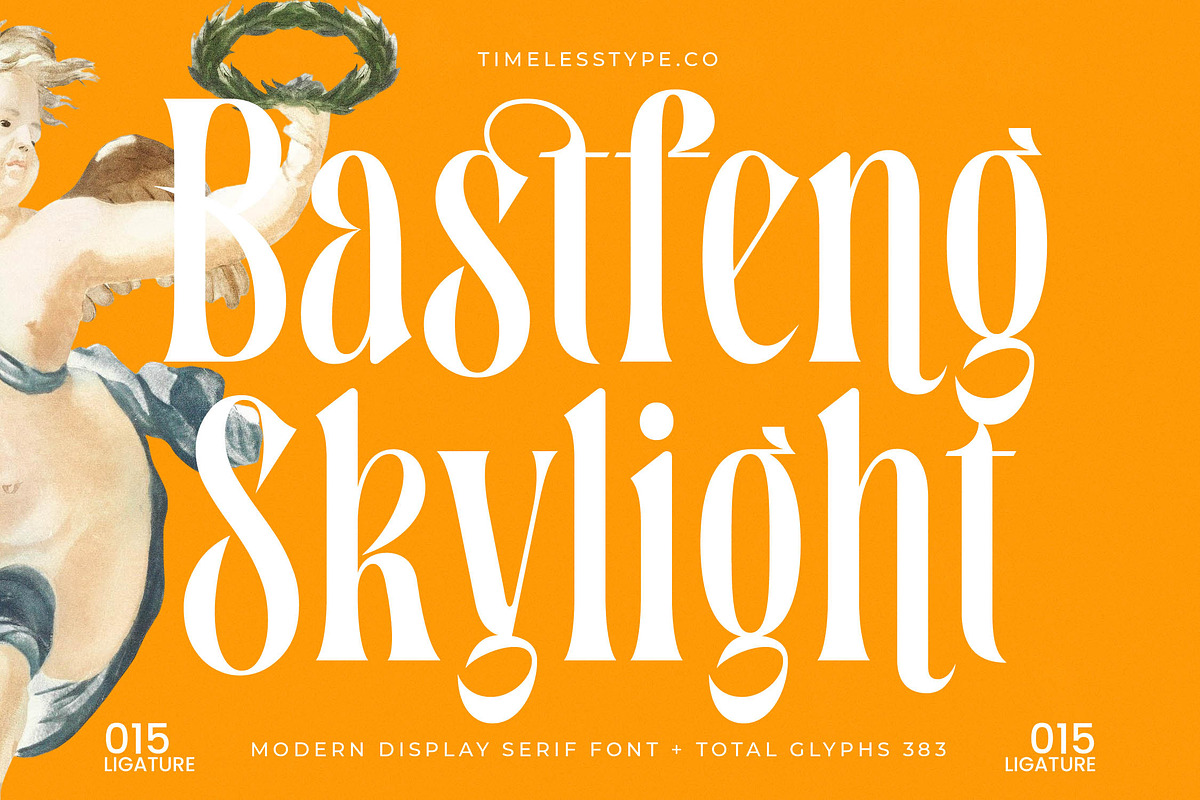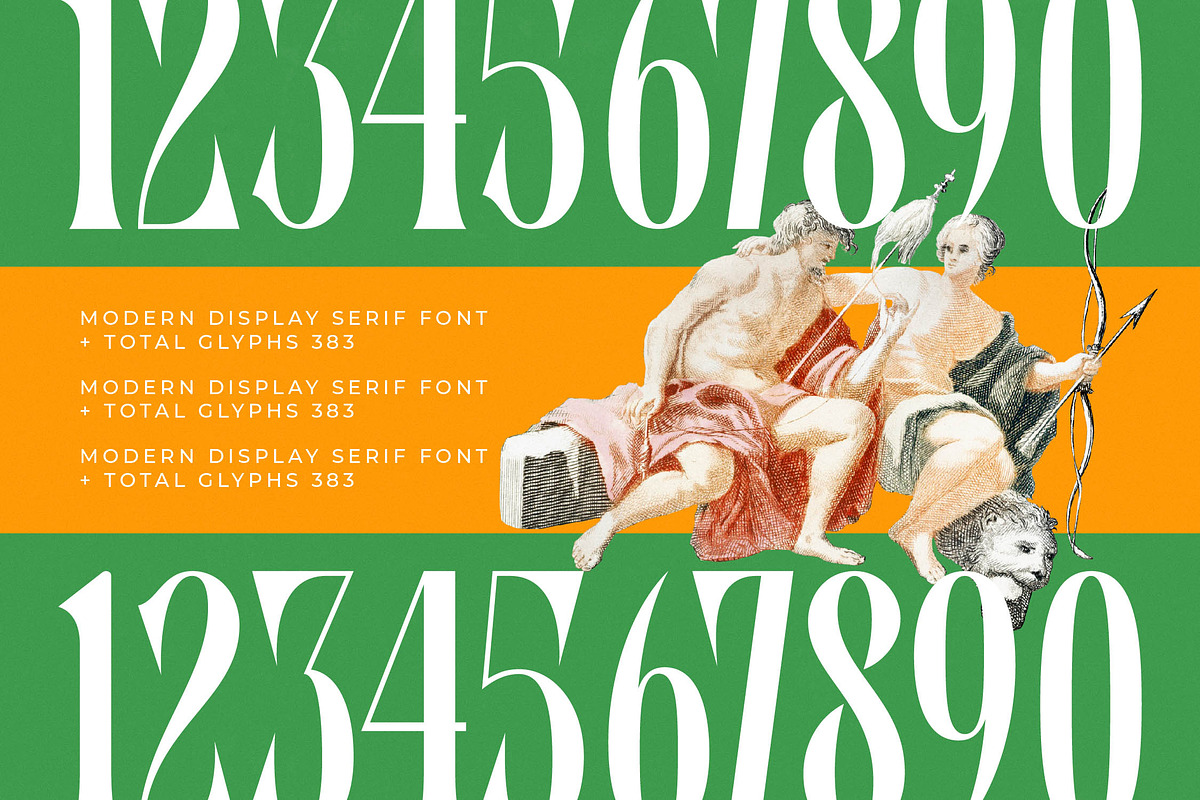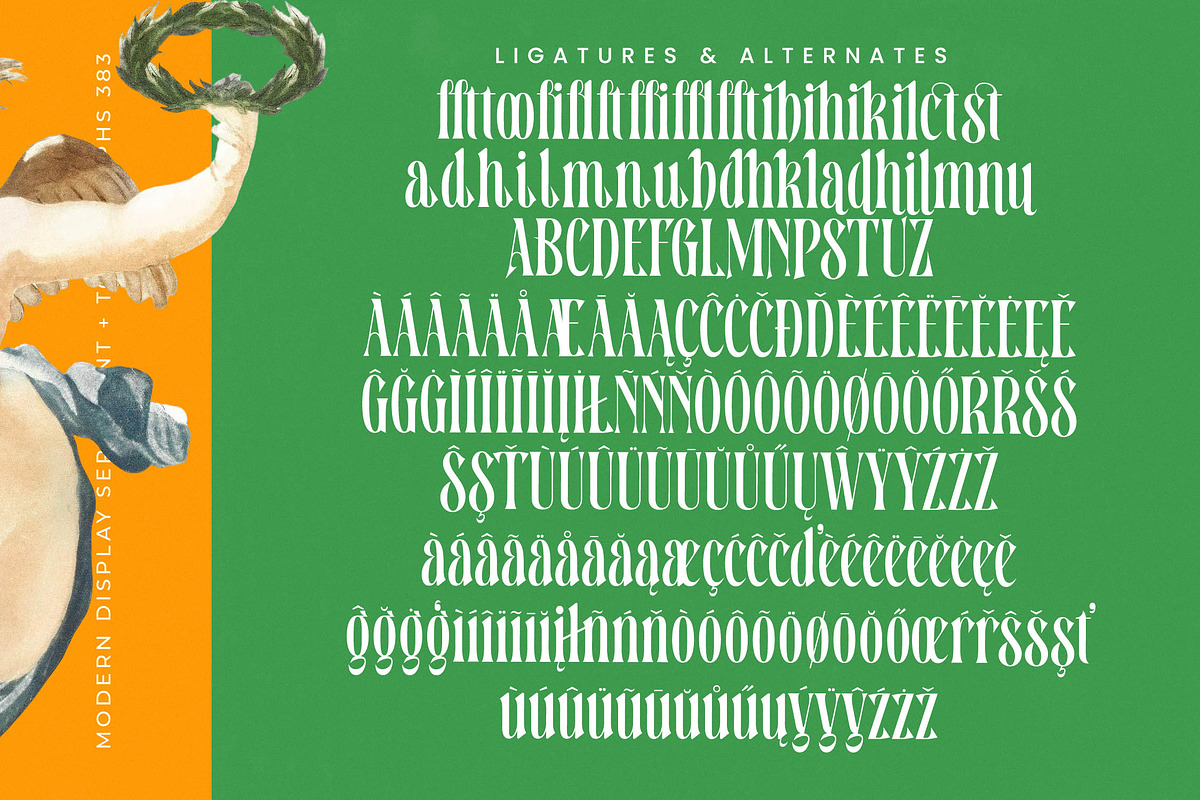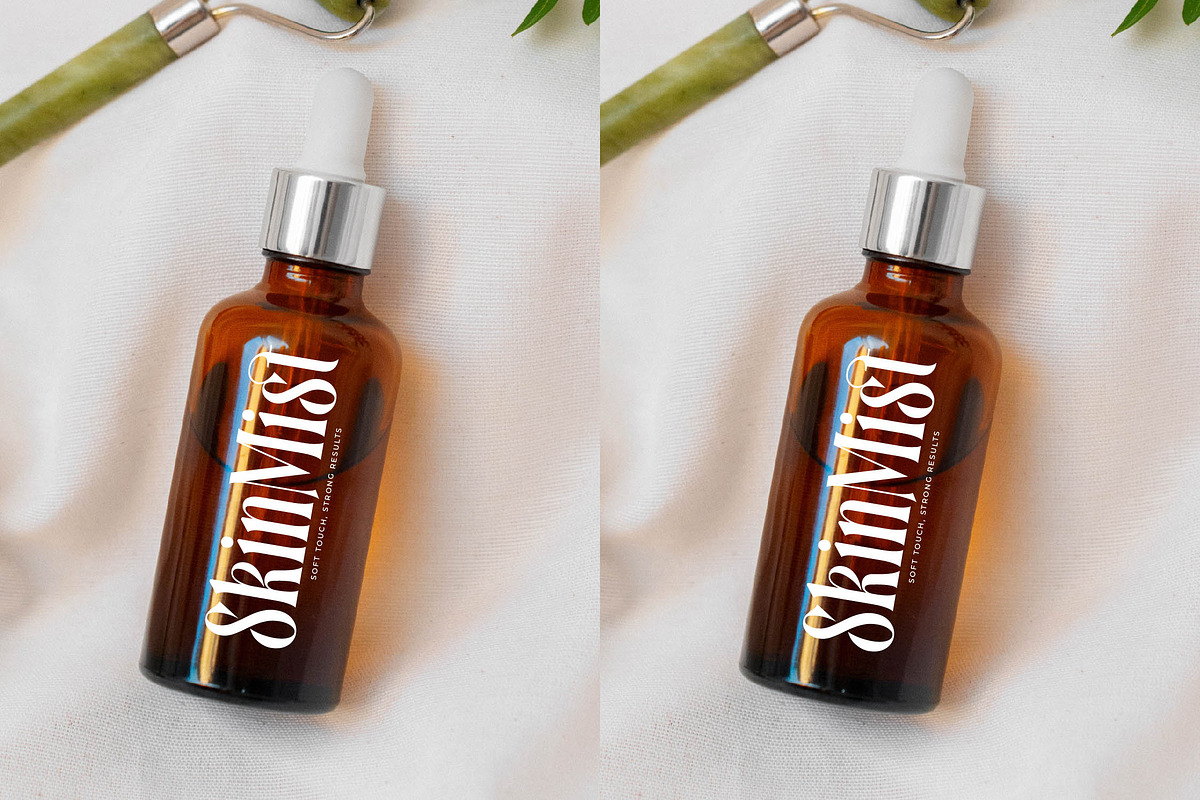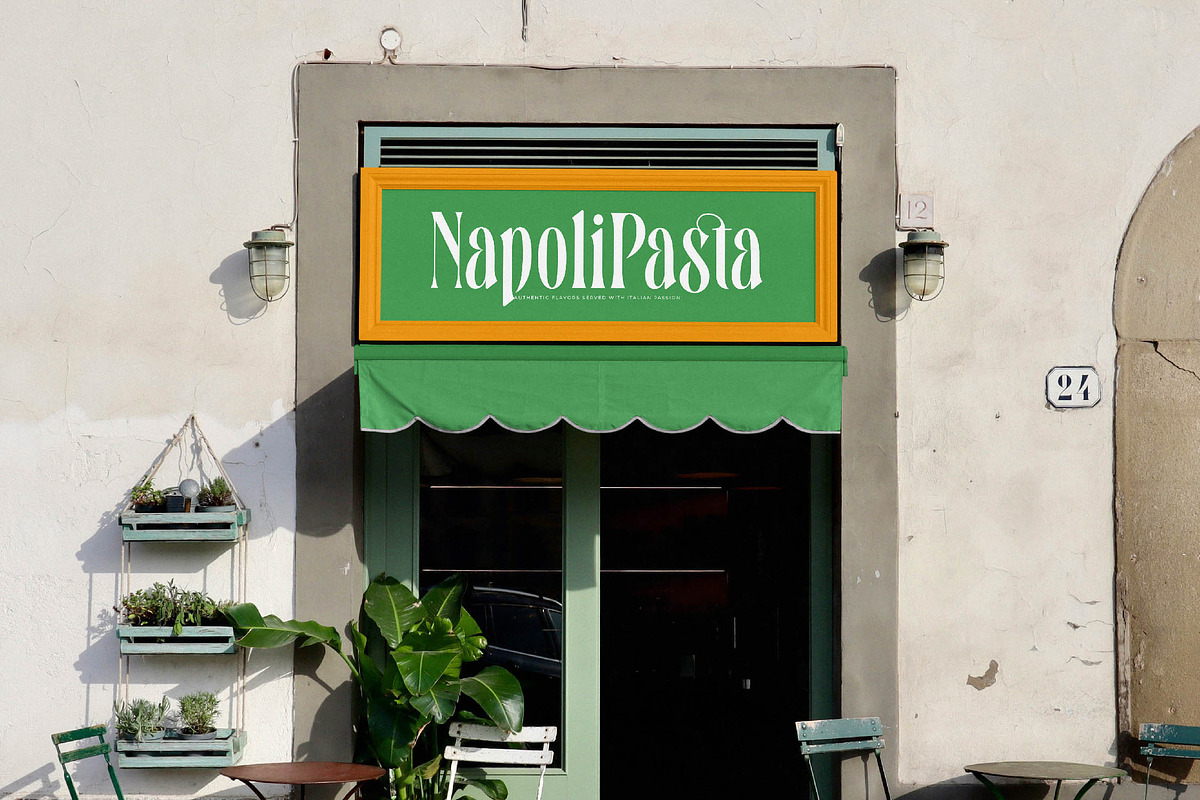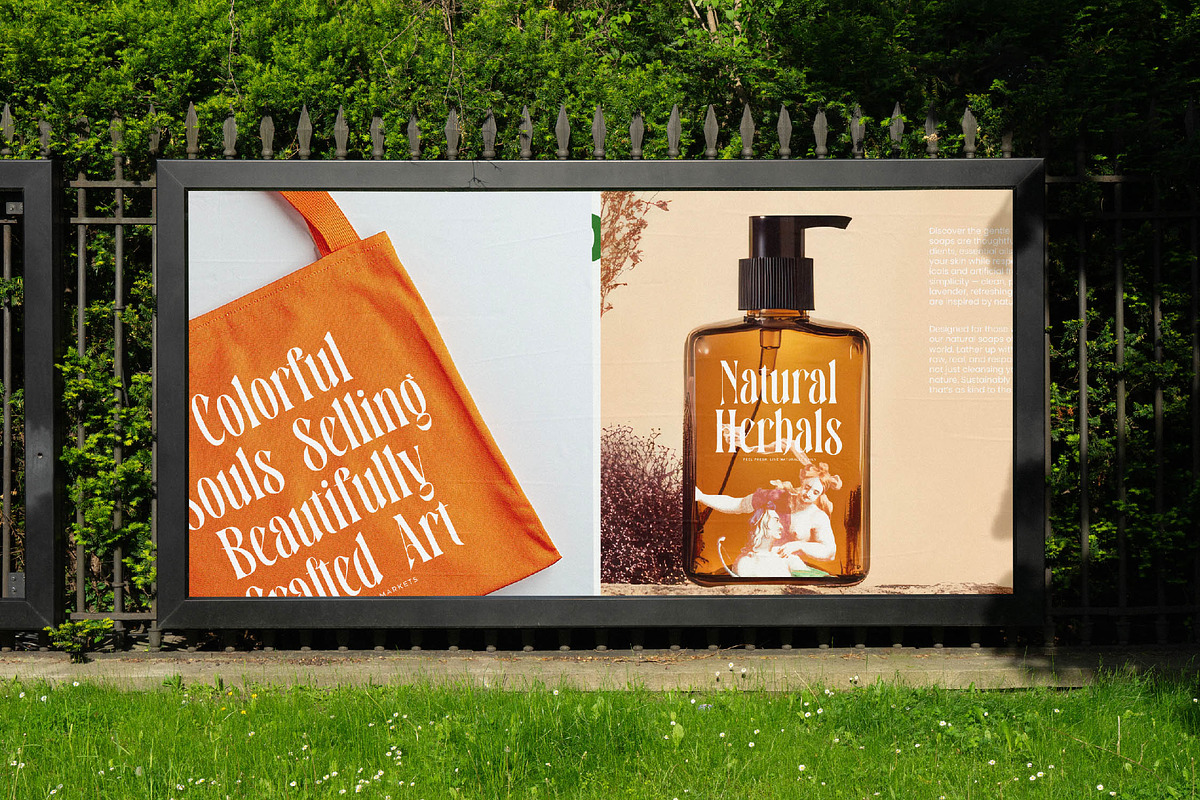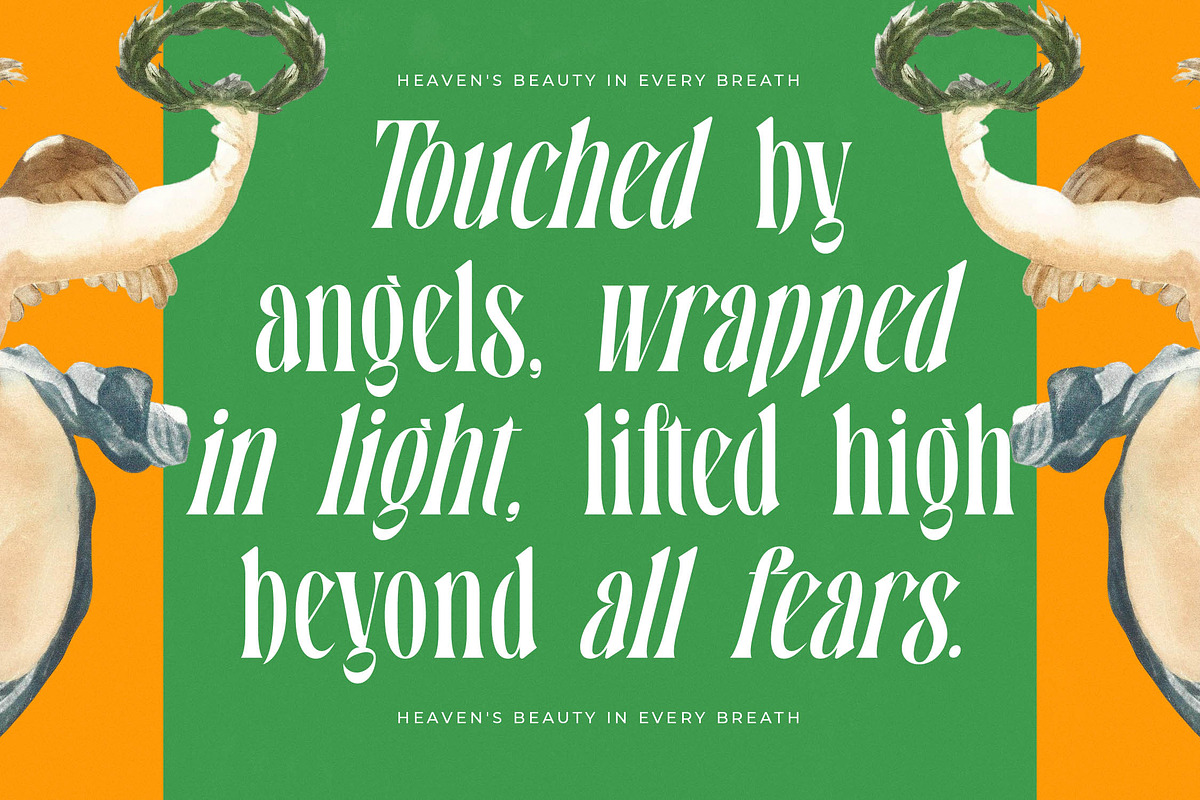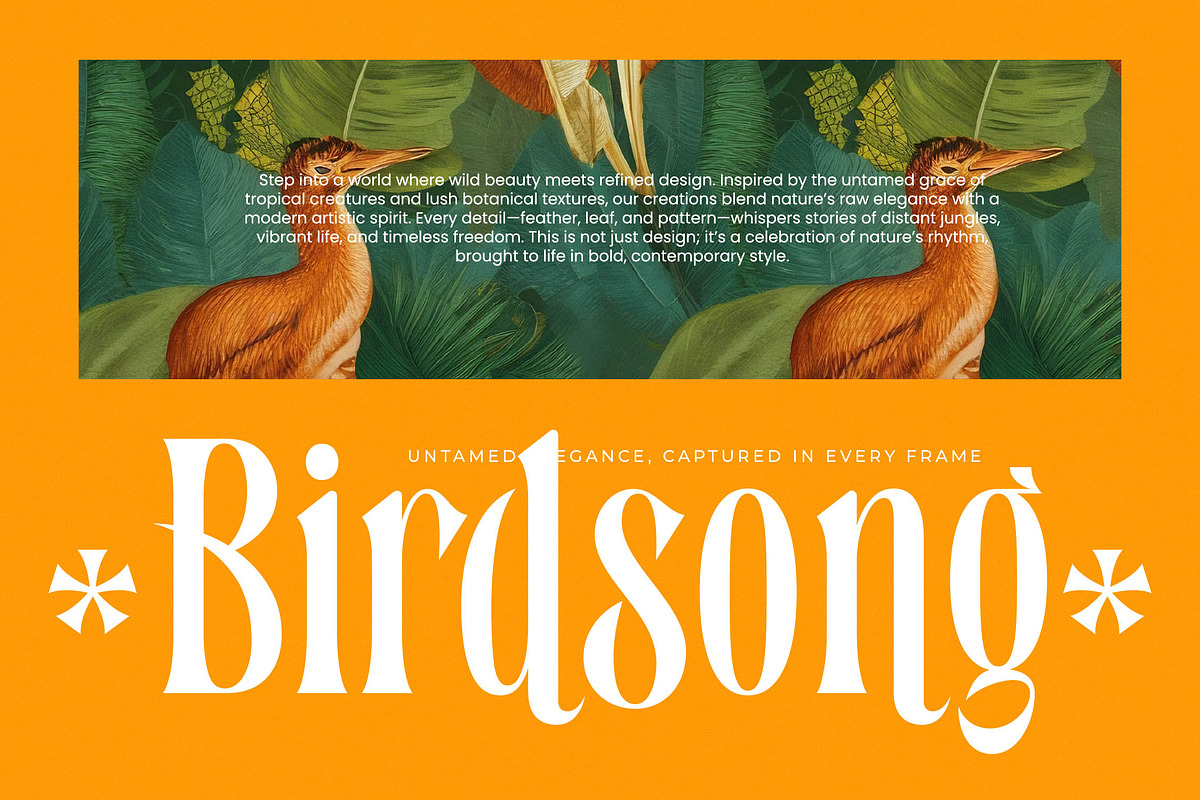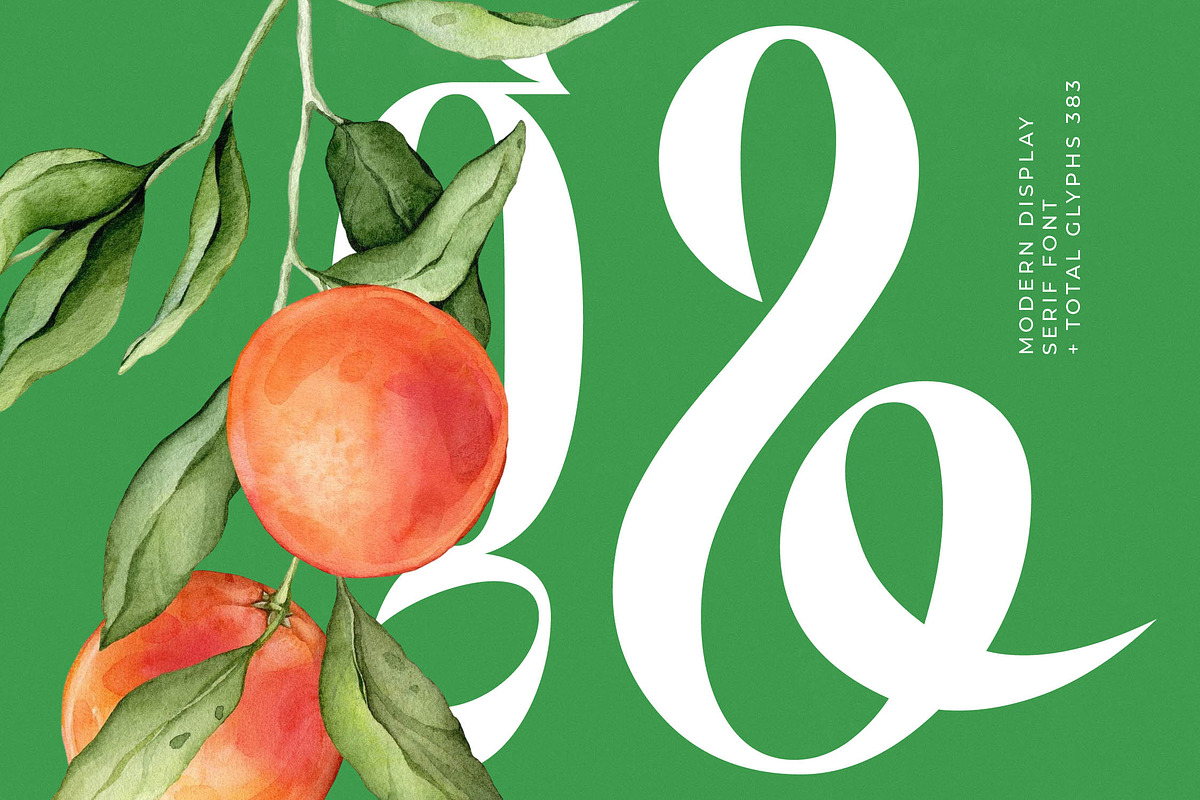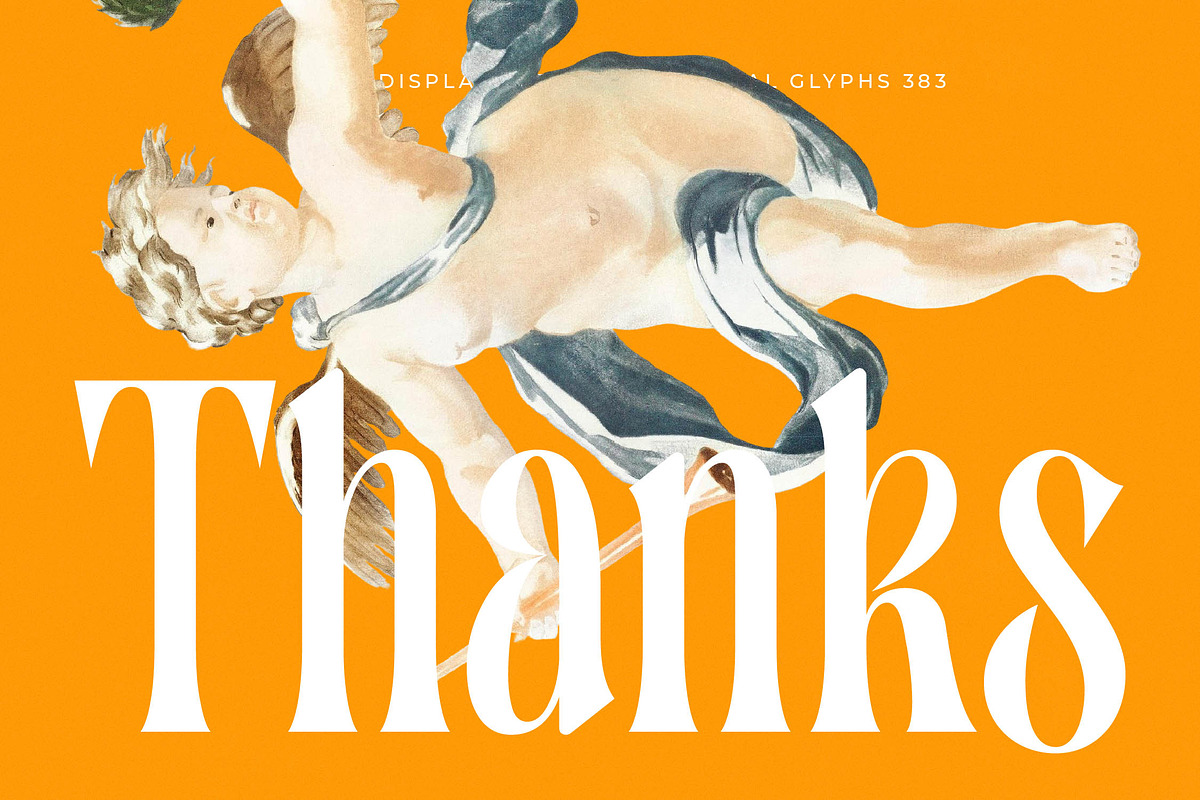
Bastfeng Skylight Modern Serif
Elevate your creative vision with the ethereal elegance of Bastfeng Skylight, a font that bridges the gap between classical art and contemporary design. This typeface is a masterclass in sophisticated flair, designed to command attention while maintaining a graceful, light-filled presence.
Inspired by the airy grandeur of classical skylights and the timeless beauty of Renaissance sculptures, this font captures the essence of divine proportion. The visual narrative draws from the interplay of light and shadow, creating a rhythmic flow that feels both historic and refreshingly new.
As a modern serif display, this typeface exudes a sense of luxury typography through its high-contrast serif strokes and delicate terminals. It functions perfectly as an editorial font, offering an undeniable branding impact for projects that require a touch of prestige and artistic sophistication.
Tapping into the current modern serif trend, this typeface is an essential tool for designers seeking editorial display fonts that break away from the mundane. It embraces character-driven typography, making it a standout choice for those looking to stay ahead of the curve in a competitive visual landscape.
Ideal for high-end logo design and comprehensive branding suites, this font excels in editorial layouts, luxury packaging, and bespoke wedding invitations. Its versatility makes it a premier choice for fashion magazines and boutique identity projects where visual storytelling is paramount.
Equipped with an extensive set of ligatures and alternates, this typeface allows for endless creative customization. The inclusion of multilingual support and international characters ensures global reach, making it a robust and versatile asset for any professional designer's toolkit.
- Ligature 015 Alternate 036